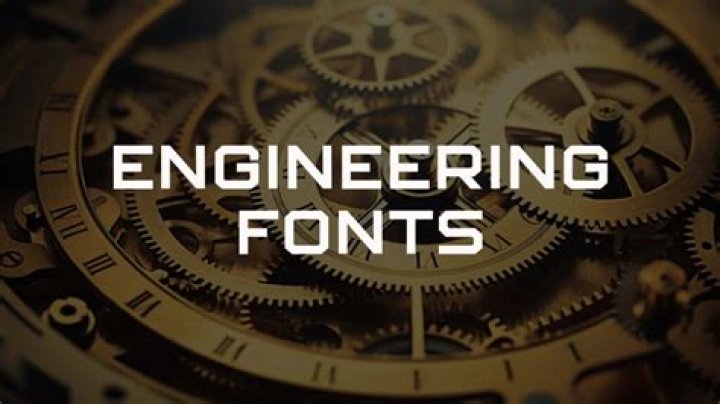
Also, which style of lettering is most commonly used in engineering drawing and why?
The MOST important reason for doing good, freehand lettering is: To make sure that the information on the drawing is understood. The most commonly used freehand lettering style on engineering drawings is: Vertical, uppercase (capital), Gothic.
Just so, why does a technical drawing require proper dimensions and lettering?
Lettering is an important part of engineering drawing. It gives information regarding size, and instructions, in the form of notes and dimension. On a drawing, whole of the written information is always in the form of lettering.
What is lettering techniques?
Hand lettering, also known as “faux calligraphy”, is an art form where each letter or word is sketched by hand. Artists can inject their own style and personality into each letter, from simple lines to spectacular flourishes.
What is the standard height of numerals?
about 1/8”What are the main requirements of lettering?
The main requirement of lettering on engineering drawing are legibility, uniformity, ease and rapidity in execution. Both upright and inclined letter are suitable for general use. All letters should be capital, except where lower case letters are accepted internationally for abbreviations.Why engineering drawing is called a universal language?
Explanation: Inclined letters are Single-stroke letters which lean to the right making a slope of 75 degree with the horizontal as per the guidance of Indian Standards. Also known as Italic lettering.Why do we hand letters?
We use hand lettering to create something unique – something that no one will ever be able to reproduce by just downloading the same font (well, of course, people can copy but that's not the point I'm trying to make here.) It also has the handmade look and feels.What are the classification of letter styles?
Typography BasicsThere are five basic classifications of typefaces: serif, sans serif, script, monospaced, and display. As a general rule, serif and sans serif typefaces are used for either body copy or headlines (including titles, logos, etc.), while script and display typefaces are only used for headlines.
What are the two rule of stability of letters?
Answer: In the construction of letters this illusion must be provided for in what may be called the "rule of stability." In order to give the appearance of stability such letters as the B E K S X and Z, with the figures 3 and 8 must be drawn smaller at the top than the bottom.What are the four guidelines of lower case letters?
- Answer: Draw the waist line and drop line.
- Cap line – the upper most horizontal guideline drawn for upper case letter.
- Waist line - indicates the upper limit of the lowercase letters.
- Base line – where all letter rest or stand.
- Drop line -- indicates the lower limit of the lowercase letters.
- Correct me if i'm wrong.
Which styles of letter is applicable for engineering drawing?
Engineering drawings use a Gothic sans-serif script, formed by a series of short strokes. Lower case letters are rare in most drawings of machines.What are the three general proportion of letters?
There are three proportions of letters namely: compressed, extended and normal.What is the distance between two words in a sentence in Gothic letter writing?
Spacing between the characters is normally 2/10 h (height of capital letters), and the spacing between the words is generally 6/10 h. 12.Which pencil is used for lettering?
The hardest standard grade for drafting/drawing pencils is 9H. The softest pencil is grade 6B. In general, a 4H pencil is used for light layout lines and guide lines that are easy to erase. A sharp H pencil is used for thin dark lines (dimension and extension lines, template work, and lettering).What are the guidelines used in small letters?
Although it is impossible to offer categorical advice for every case, some general principles apply to most cases. One overarching principle is to use lowercase letters as default and to use capitals only when you must (as, for example, with proper nouns and at the beginning of each sentence).What are the tips on doing the gothic lettering properly?
The most important calligraphy skills for writing Gothic letters are:- Pen angle at 45 degrees.
- Drawing straight vertical lines.
- Drawing short, straight diagonal lines, both thin and thick, in different directions.
- Small, controlled movements of the nib.
- Rhythm!
Is lettering important in drawing?
The Importance of LetteringA finished drawing tells how the parts will be made, what materials will be used in manufacturing, and the tolerance or degree of error that will be permitted. A standard, easily read style of lettering is used by most drafters.
What is double stroke lettering?
Double Stroke Lettering In Double Stroke Lettering the line width is greater than that of Single Stroke Lettering. Double Stroke Lettering is further divided into: a)Double Stroke Vertical Gothic Lettering. b)Double Stroke Inclined Gothic Lettering. A stencil is mostly used when hand drawing double stroked letters.What is Leroy lettering?
Howev- er, sometimes mechanical lettering (standard uniform characters) was used for drawings, charts, maps, or signs. The LEROY lettering set was a popular mechanical lettering tem- plate used by professionals from the 1940s to the 1970s. It was invented by the Keuffel & Esser Company.Which pencil is more suitable for lettering and dimensioning?